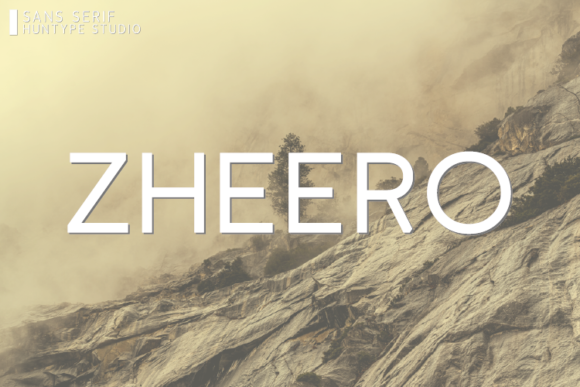
Behold Zheero, a minimal and neat sans serif font family that will infuse your creative projects with a touch of elegance and sophistication. Crafted with utmost care by the skilled artisans at Huntype, Zheero's clean lines and subtle curves lend it an air of timeless beauty, making it the perfect choice for a wide range of design endeavors.
Indulge in the versatility of Zheero, a font that effortlessly adapts to any design aesthetic, from the classic and traditional to the modern and cutting-edge. Its understated charm adds a touch of sophistication to branding and logos, while its legibility and clarity excel in editorial design, bringing your words to life with crisp precision.
Unleash your creativity and let Zheero elevate your designs to new heights. Its intuitive nature makes it a joy to use, flowing seamlessly from one project to the next. Experience the transformative power of Zheero as it breathes life into your digital creations, leaving an indelible mark on your audience.
Dive into the world of Zheero and discover a font that is both aesthetically pleasing and highly functional. Its crisp edges and smooth curves render beautifully on both screens and print, ensuring your designs shine in any medium. Embrace the versatility of Zheero and unlock a world of endless creative possibilities.
With Zheero as your creative companion, you'll find yourself reaching for it time and again, drawn to its timeless elegance and adaptability. Let Zheero be the font that elevates your designs, captivates your audience, and leaves a lasting impression.
Don't let mediocrity hold your creativity hostage. Embrace the power of Zheero and unleash your full creative potential. Experience the joy of effortless design as Zheero seamlessly blends into your workflow, transforming your ideas into stunning realities.